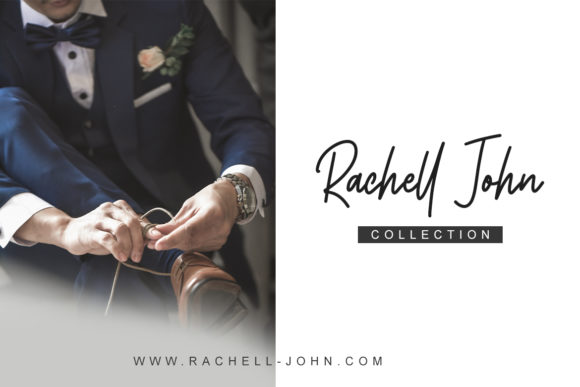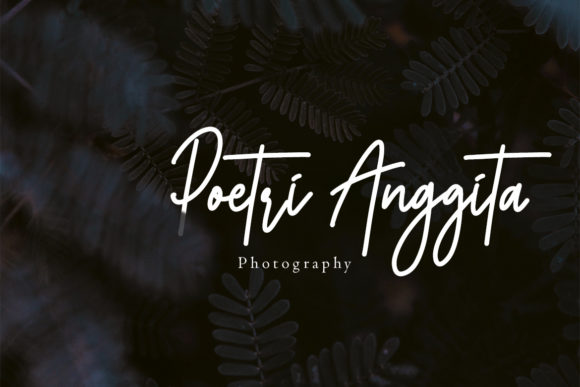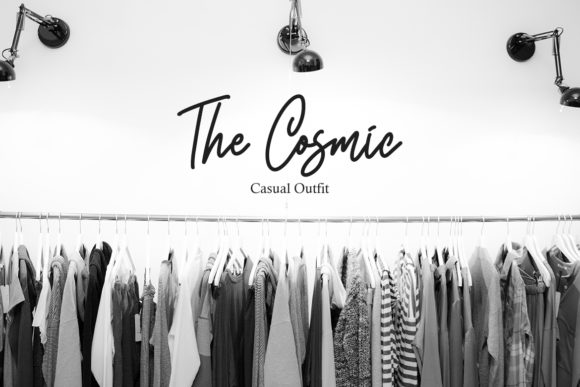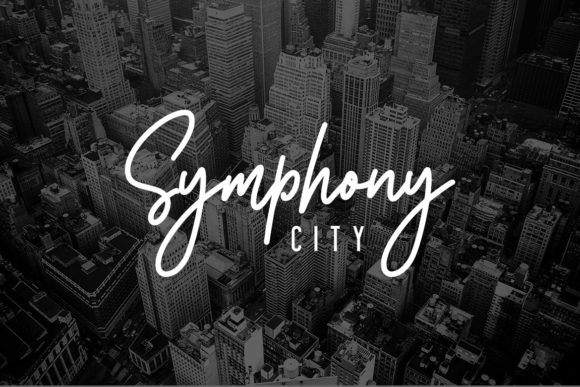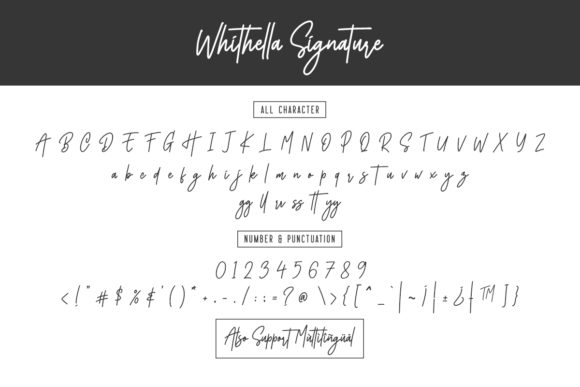
Whitehella Font
About Whitehella Font
Whitehella is a cute and modern handwritten font with an incredibly friendly feel. It features gorgeous swashes and ligatures that make this script incredibly versatile. Whether you’re looking for fonts for Instagram or calligraphy scripts for DIY projects, Whitehella will turn any creative idea into a true piece of art!